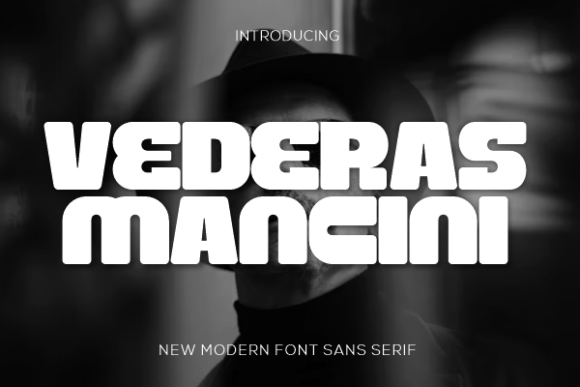
Vederas Mancini: A Modern Sans Serif for Thoughtful Editorial Design
It was a quiet Tuesday morning—coffee still warm, the first draft of a new seasonal newsletter laid out in Figma—and I paused. Not over wording or structure, but over type. The headline needed presence without shouting. Clarity without coldness. Warmth without whimsy. That’s when I opened my font library and scrolled straight to Vederas Mancini.
Vederas Mancini is a clean, modern sans-serif font built for moments like this: when you’re designing not just for eyes, but for breath, rhythm, and intention. Its lines are simple and assured—no exaggerated terminals, no forced contrast—just smooth curves meeting crisp geometry. There’s a gentle confidence in its letterforms, a quiet balance between precision and approachability. It doesn’t demand attention; it earns it.
I tested it first as the header for a digital magazine feature on mindful home cooking—a topic where warmth and clarity matter equally. Set large at 48px on a soft oat background, Vederas Mancini held space with dignity. No visual noise. No optical strain. Just clean, grounded readability. Later, I used it for chapter openers in a printable coaching workbook: short, centered phrases like “Pause Before You Plan” or “What Feels True Today?” Each line settled into place like a thoughtful exhale.
This is where Vederas Mancini shines—not as a decorative flourish, but as a reliable voice. It’s a display font by nature, designed for impact at medium to large sizes. Think blog headers, ebook covers, newsletter banners, wedding guide titles, or section dividers in a digital course PDF. Its light and regular weights offer subtle hierarchy, while the bold weight delivers emphasis without aggression. It’s not meant for long-form body copy—that’s best left to a well-paired serif or neutral sans—but it elevates every title, pull quote, and callout with quiet authority.
In practice, I paired it with Lora for an editorial feature page: Vederas Mancini for headlines and subheads, Lora for body text. The contrast felt natural—modern framing around timeless reading comfort. For a recipe ebook, I used Vederas Mancini for dish names and section labels (“Spring Staples,” “Weeknight Shortcuts”), then dropped into Inter for ingredient lists and instructions. The shift was seamless, never jarring. That’s the mark of a well-designed sans serif: it supports, rather than competes.
Readability holds up beautifully across formats. On screen—especially on mobile—it renders cleanly, even at smaller display sizes like 24–32px for subheads. In PDF exports, it embeds smoothly with consistent spacing and no glyph fallbacks. For printables like planners or guided journals, its open counters and generous x-height mean it stays legible even when printed at 10pt in tight grids. And because it includes Latin-1 and basic multilingual support (including accented characters common in French, Spanish, and Portuguese), it works gracefully in bilingual lifestyle content or global creator newsletters.
What makes Vederas Mancini feel especially suited to independent publishers and small creative brands is its consistency of tone. It doesn’t try to be playful or dramatic—it simply is: calm, capable, and quietly distinctive. When used across touchpoints—your blog header, your course landing page, your printable guide cover—it builds cohesion without repetition. Readers begin to recognize that subtle rhythm: the way the ‘a’ opens, how the ‘t’ anchors itself, the even pacing of word spacing. That’s brand identity, built one character at a time.
I’ve also found it pairs elegantly with minimalist design systems. In a recent wedding planning guide, I used Vederas Mancini for ceremony timelines and vendor checklists, then layered in thin line icons and ample white space. The result felt curated, not cluttered. In a digital magazine layout, I set pull quotes in Vederas Mancini Bold at 36px, slightly tracked-out, floating beside serif body text—each quote became a pause point, a moment to linger. Even in social media graphics, where space is tight and attention is fleeting, it communicates intention fast: a single phrase like “Begin Here” feels both inviting and definitive.
Typography, at its best, isn’t about decoration—it’s about stewardship. Stewardship of attention. Of time. Of meaning. Vederas Mancini doesn’t distract from the message; it clarifies it. It gives structure without stiffness, personality without pretense. Whether you’re laying out a quiet newsletter for creative professionals, designing a soothing printable planner, or setting the tone for a heartfelt ebook on slow living, it meets the work with steady grace.
And that’s why, on that Tuesday morning, I didn’t keep scrolling. I selected Vederas Mancini, adjusted the tracking by +20, and let the words breathe—clear, calm, and completely themselves.